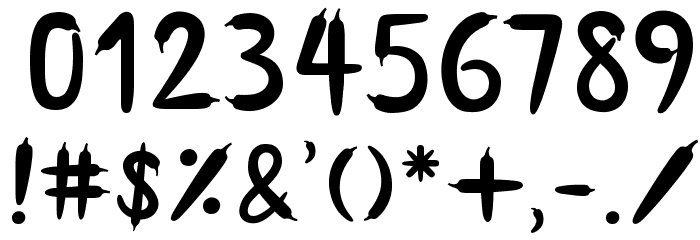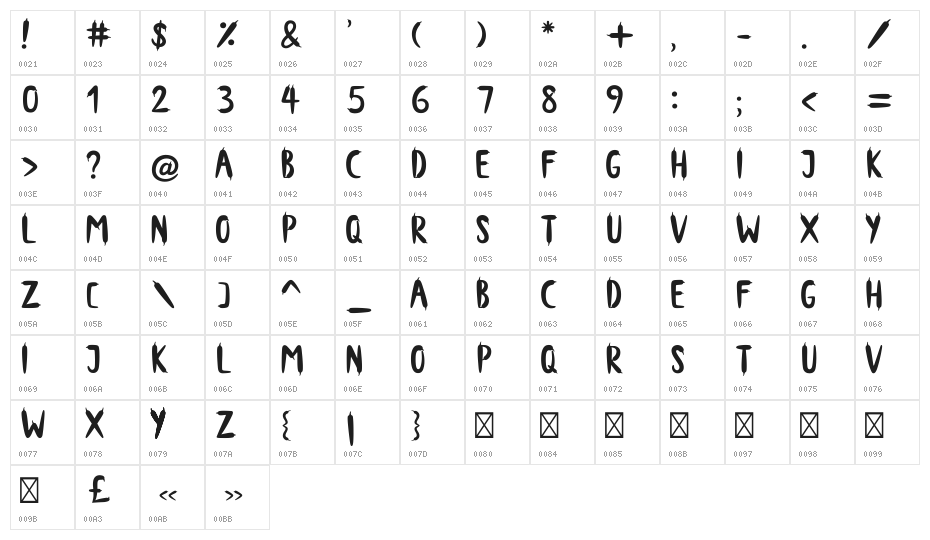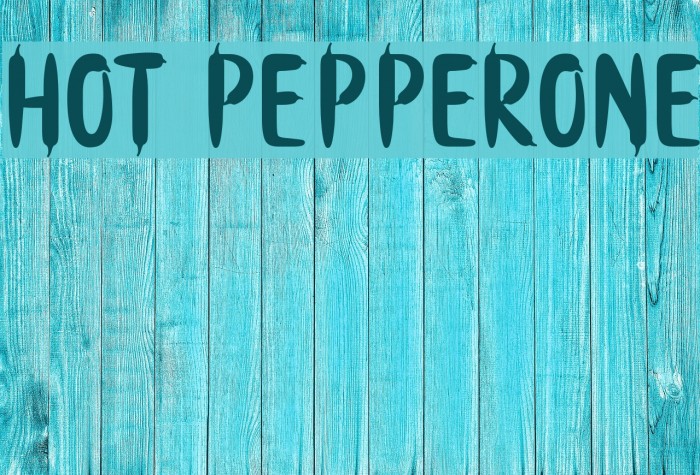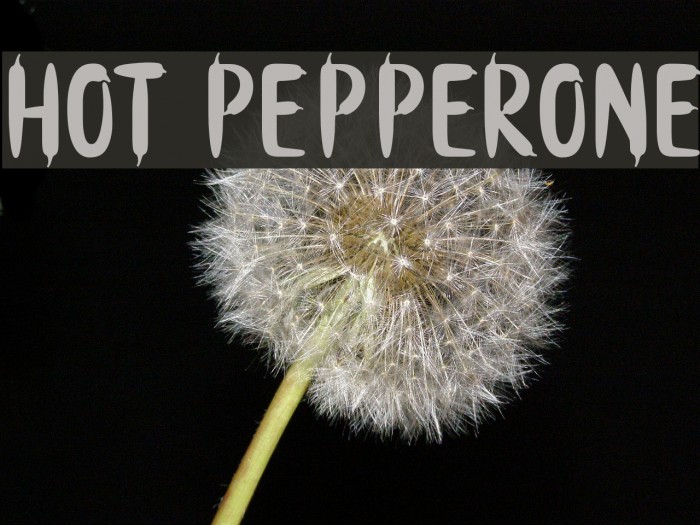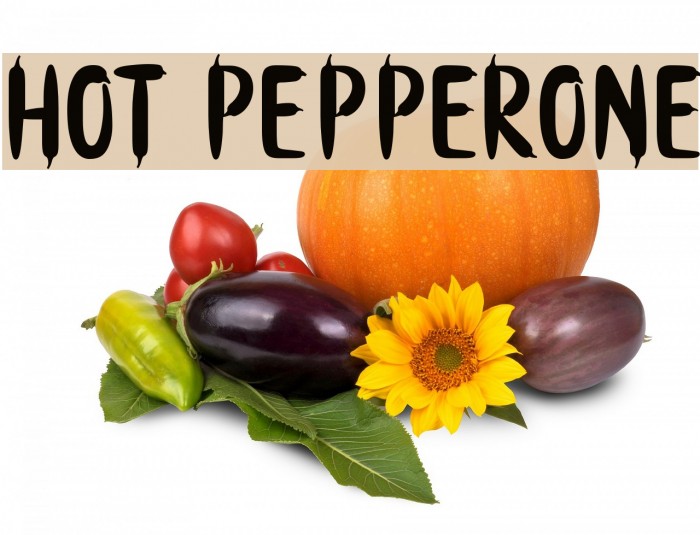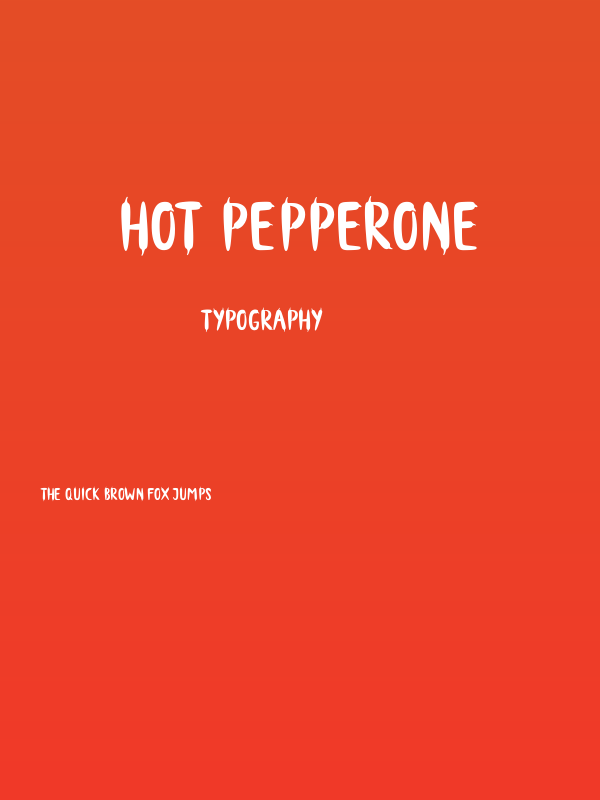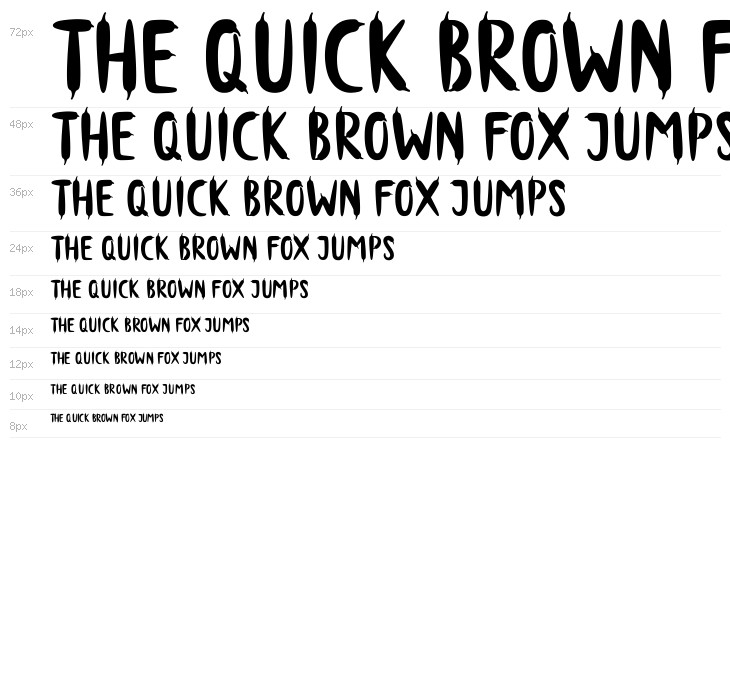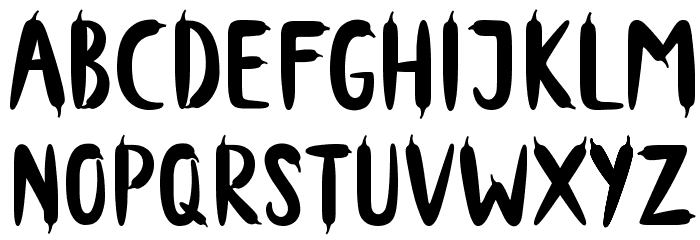
Hot PepperOne Font
Hot PepperOne Description
This font features a bold and playful design with a hand-drawn aesthetic. The characters are slightly irregular, giving them a lively and dynamic appearance. The strokes are thick and rounded, with subtle variations that add a sense of movement and energy. The overall look is informal and fun, making it suitable for creative and casual projects. The font includes a full set of uppercase and lowercase letters, numbers, and a variety of special characters, ensuring versatility in use.
Fonts by Xingjian Liang
| Proposed Projects | Ideal for children's books, playful branding, posters, and creative social media graphics. |